Everyone is in love with the 80s. Inspired by everything from the futuristic sci-fi films to the awesome retro graphics, designers are getting really creative with their 80s style fonts. Looking for the best 80s fonts to complete your projects? Check out this new list of exciting pro fonts from Envato Elements.
1. Horsemen: Horror Synthwave Fonts (OTF, WOFF)
Synthwave fonts with the 80s retro aesthetic inspired by movie titles look really cool. Check out Horsemen, an 80s retro font inspired by artwork, movies, and music from that decade. This 80s typography will look fantastic on T-shirts, posters, comics, album covers, and any creative project you've got.
2. Hanahelia 80s Retro Font (OTF, TTF)
Hanahelia is a great example of an 80s style font with a retro 80s aesthetic. Add some neon and shiny effects, and you'll get a cool 80s lettering design. This 80s script font is perfect for logos, flyers, posters, and more.
3. Retrofuturism Synthwave Fonts (OTF)
In the 80s, futuristic looks were very popular, and this eighties font is all about that. Take advantage of this complete retro-futuristic font pack with a touch of the Stranger Things aesthetic. It comes with the OTF typeface, as well as cool backgrounds and elements in EPS, JPG, PNG, and PSD files.
4. Rodagear Script Neon 80's Font (OTF)
Neon was trending in the 80s, and it sure is trending now. Check out this cool 80s neon font and add a really cool touch to your retro designs. Use this eighties font for logos, branding, business, or any project you've got in mind.
5. Ferguso: Retro 80s Aesthetic Font (OTF)
This nice sans-serif eighties font is described by its creator as the result of mixing "the trends of aesthetic design with the implementation of vintage poster design, and 80s disco boogie music". We think it's a really cool 80s style font for your designs.
6. Gorgom: Retro 80s Futuristic Font (OTF)
Looking for unique 80s font styles? Gorgom is a cool futuristic typeface that looks awesome as an 80s style font. It looks great on gaming projects and any other retro designs. Try it out if you want a retro computer font in your creative arsenal.
7. Death Star 80's Retro Aesthetic Font (OTF, WOFF)
Nothing has more 80s retro aesthetic than Star Wars. This wicked 80s type design is inspired by Star Wars. Crush the competition with a cool retro font that's perfect for sci-fi projects and games. Included in this 80s retro-futuristic font download are letters, numbers, and additional alternates and ligatures. Check it out!
8. Maldives Handbrush 80's Retro Font (OTF, TTF)
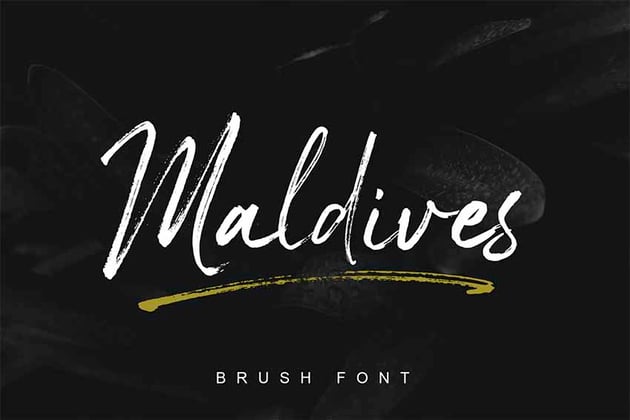
Need handmade 80's font styles? Handmade fonts are created by scanning in high-resolution images of letters elegantly brushed by hand. This set of 80s typefaces includes a versatile brush typeface inspired by simple masculine vibes. Try this 80s brush font on posters, invites, or stationery.
9. Ambisi Typeface Retro 80's Font (OTF, TTF)
Eighties text fonts like Ambisi are like no other. They feature interesting geometric shapes inspired by abstract and futuristic concepts. Make your work stand out with this cool and unique eighties font text style.
10. Ambrogio Signature 80s Script Font (OTF, TTF, WOFF)
Or wrap your signature around a stunning skyline with the Ambrogio eighties font. This 80s script font is destined to give your work a bold new aesthetic. Designed entirely by hand and inspired a little by the Miami Vice font, this 80s script font will work perfectly with book covers, magazines, and text effects.
11. Heatwave 80s Retro Font (OTF, WOFF)
Need a neon 80s font? Heatwave might be just the fit for your 80s poster. Inspired by classic retro 80s graphics and a little of the Stranger Things aesthetic, this font is cool and edgy. Included in this download is a full set of letters, numbers, and punctuation. Multi-language support is also included in this 80s retro lettering pack.
12. Burnout 80s Font (OTF, TTF)
Feeling burnt out? Stay inspired with a creative typography project. This burnout eighties font is an all-caps typeface that is loud and proud. So stand out with this complete set of letters, numbers, and punctuation. It's perfect for retro album covers too.
13. Boldwest Retro 80s Font (OTF)
Want a bold font with the 80s retro aesthetic? Boldwest is a creepy and spooky font type. Inspired by Halloween, the letters were created to emulate spooky ghost shapes and funny characters. Add the 80s lettering to your work for a cute and funny typeface.
14. New York Simple Modern 80s Mix (OTF, TTF)